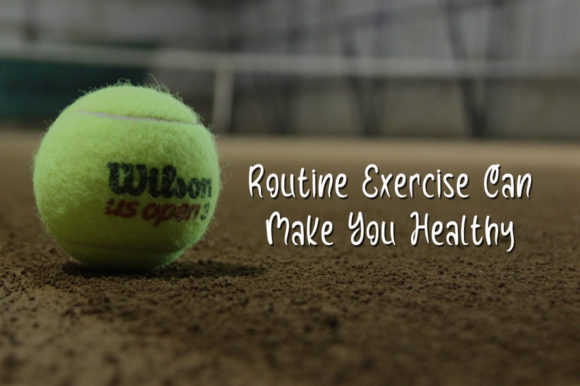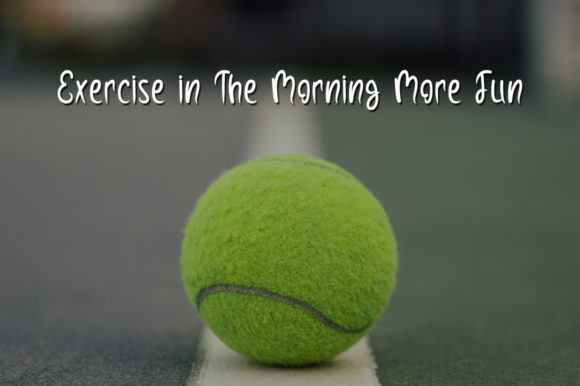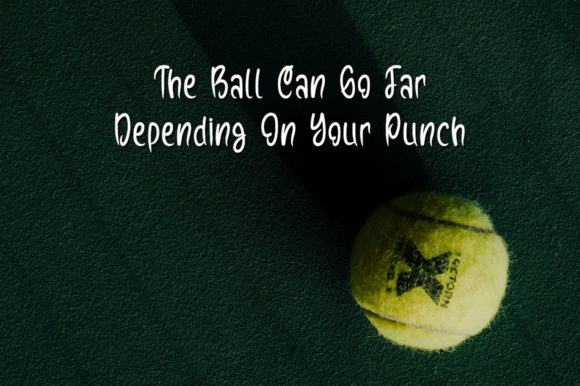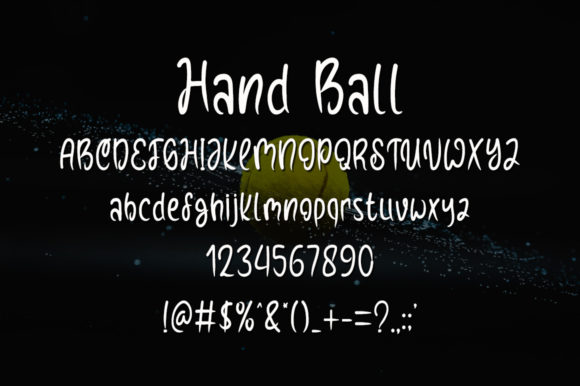
Introducing Hand Ball Font: The Sweet and Simple Handwritten Font for Your Creative Projects
Are you a designer, crafter, or DIY enthusiast looking for a unique and versatile font to elevate your creative projects? Look no further than Hand Ball Font, a sweet and simple handwritten font that’s perfect for a wide range of designs. In this article, we’ll explore the features and benefits of Hand Ball Font, and show you how it can bring your ideas to life.
What is Hand Ball Font?
Hand Ball Font is a beautifully crafted handwritten font that’s characterized by its simplicity and elegance. Its unique style is reminiscent of handwritten notes and letters, making it perfect for projects that require a personal touch. The font is incredibly versatile, and can be used for a variety of designs, from digital projects to print materials.
Key Features of Hand Ball Font
- Unique and Handwritten Style: Hand Ball Font has a distinctive handwritten style that’s both sweet and simple.
- Versatile: The font is suitable for a wide range of designs, from digital projects to print materials.
- Elegant and Simple: The font’s simplicity and elegance make it perfect for projects that require a touch of sophistication.
- Easy to Read: The font is clear and easy to read, making it perfect for body text and headings.
Benefits of Using Hand Ball Font
So why choose Hand Ball Font for your creative projects? Here are just a few benefits of using this amazing font:
- Adds a Personal Touch: Hand Ball Font’s handwritten style adds a personal touch to your designs, making them more relatable and engaging.
- Perfect for Branding: The font’s unique style makes it perfect for branding projects, such as logos, business cards, and letterheads.
- Suitable for Digital and Print Materials: Hand Ball Font can be used for both digital and print materials, including social media graphics, flyers, brochures, and more.
- Easy to Pair with Other Fonts: The font’s simplicity makes it easy to pair with other fonts, allowing you to create stunning font combinations.
Creative Ideas to Use Hand Ball Font
So, how can you use Hand Ball Font in your creative projects? Here are a few ideas to get you started:
- Wedding Invitations: Use Hand Ball Font to create beautiful and elegant wedding invitations that set the tone for your special day.
- Social Media Graphics: Add a personal touch to your social media graphics, such as Instagram posts and Facebook covers, with Hand Ball Font.
- Branding and Packaging: Use Hand Ball Font to create unique and memorable branding and packaging designs that stand out from the crowd.
- DIY Crafts: Add a touch of elegance to your DIY crafts, such as handmade cards and gift tags, with Hand Ball Font.
In conclusion, Hand Ball Font is a sweet and simple handwritten font that’s perfect for designers, crafters, and DIY enthusiasts. Its unique style and versatility make it suitable for a wide range of designs, from digital projects to print materials. With Hand Ball Font, you can add a personal touch to your creative projects and bring your ideas to life. So why wait? Download Hand Ball Font today and start creating!
Hand Ball Font is a sweet and simple handwritten font. Its unique style makes this font incredibly versatile, fitting a wide range of designs. Add it to your most creative ideas and notice how it makes them come alive!